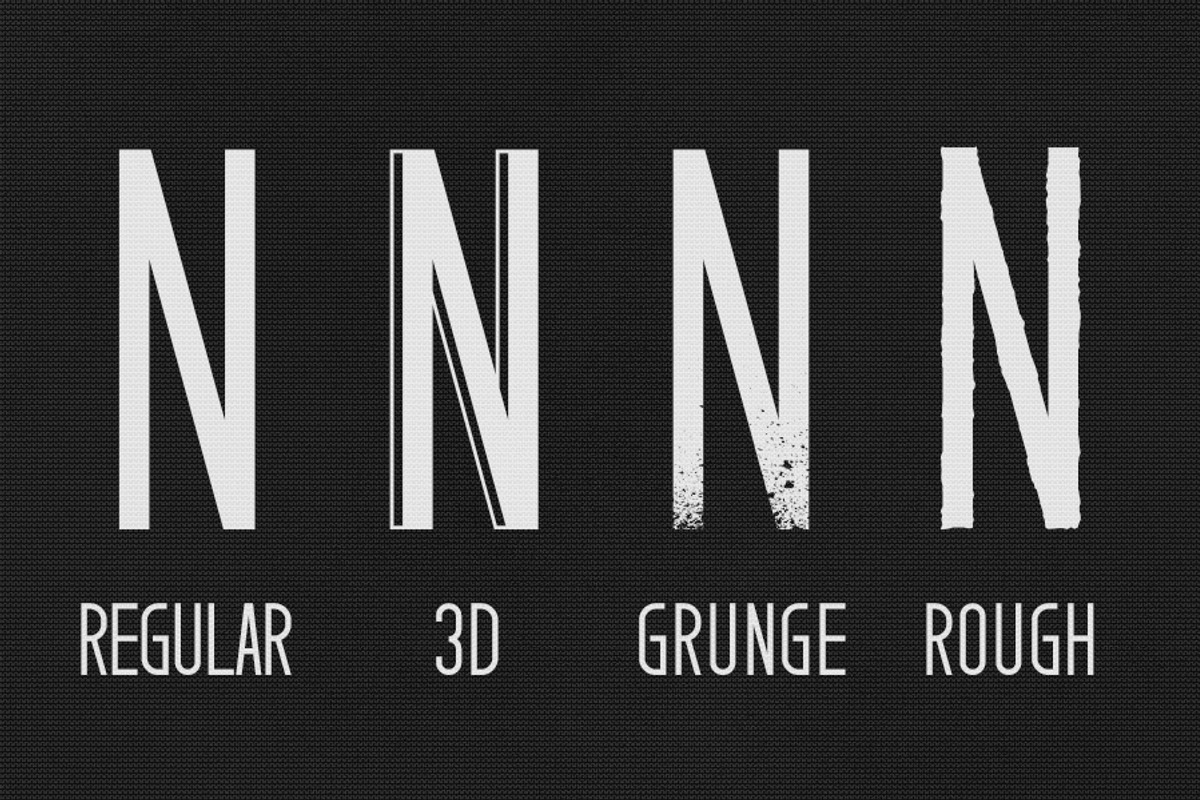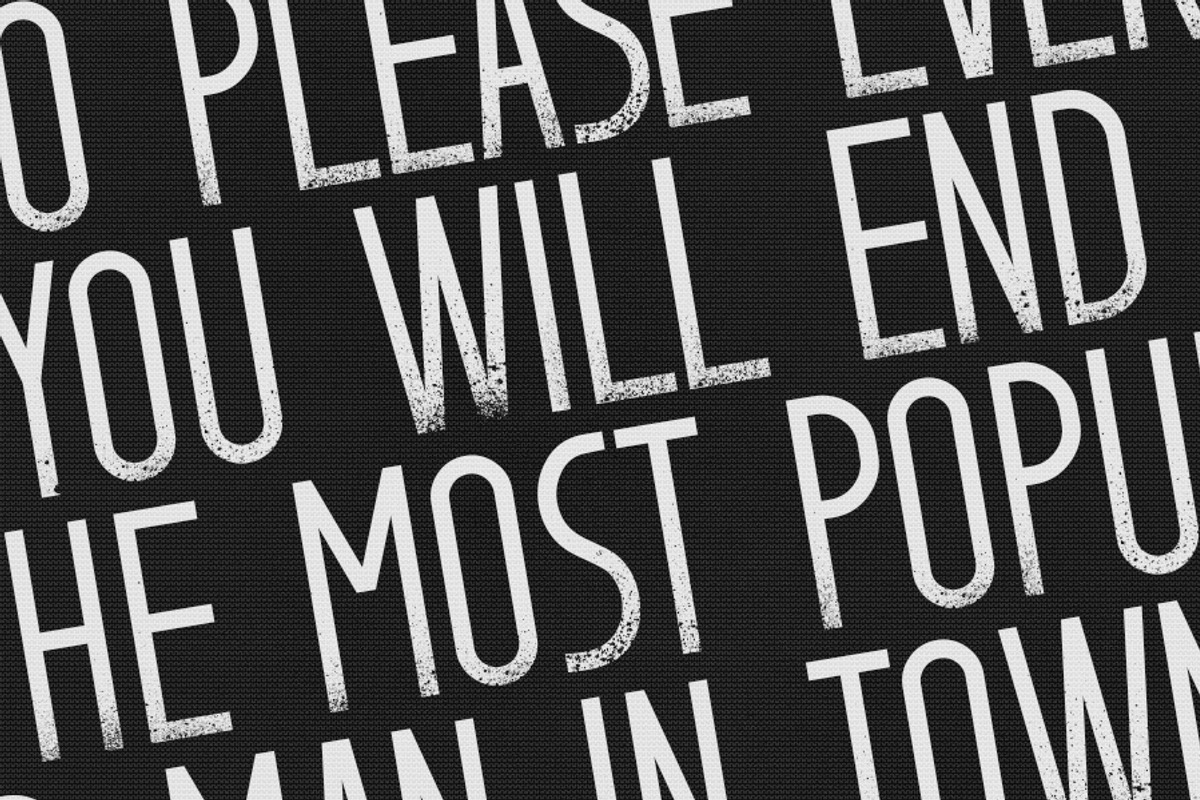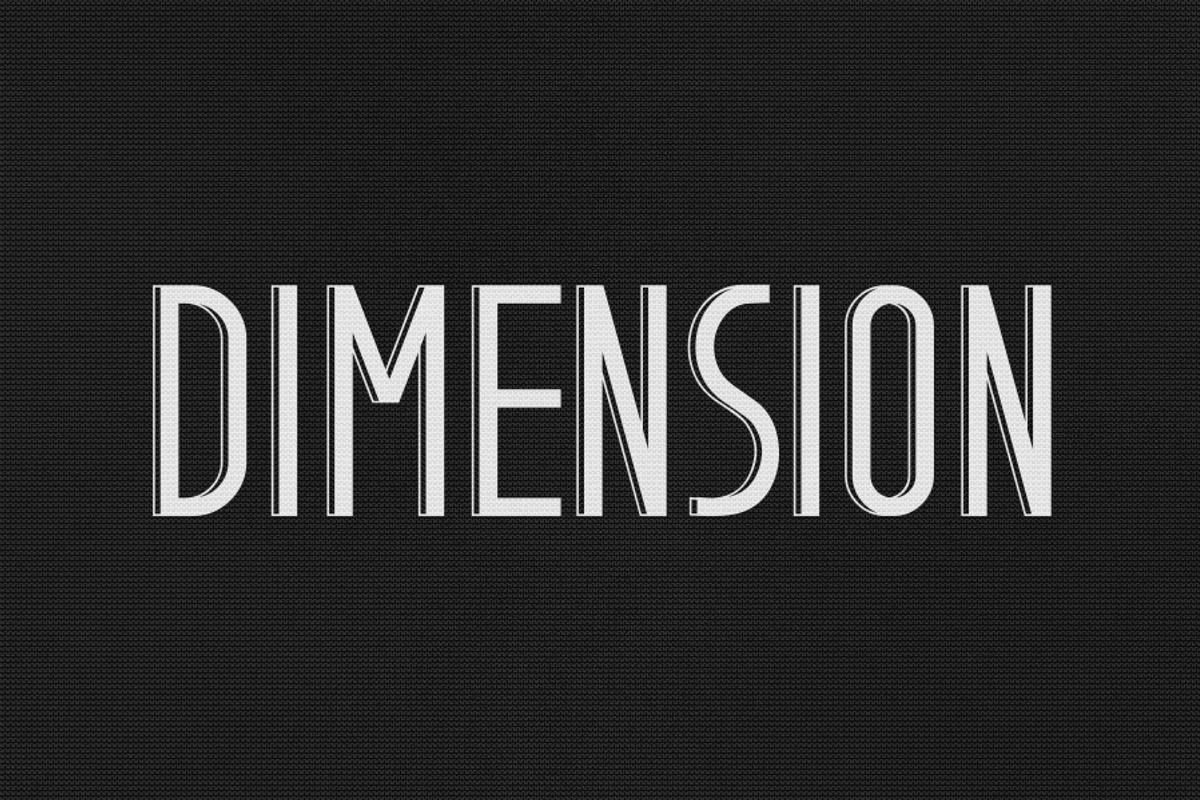
Zephyr Typeface
Zephyr Typeface by Tugcu Design Co. is a font selected for branding, posters, packaging, typography.
- It includes uppercase English letters and numbers.
- There are no lowercase letters and minimal punctuation.
- Zephyr 3D Regular
- Zephyr Grunge Regular
- Zephyr Regular
- Zephyr Rough Regular
Zephyr Typeface by Tugcu Design Co. fits naturally into Branding, posters, packaging, typography.